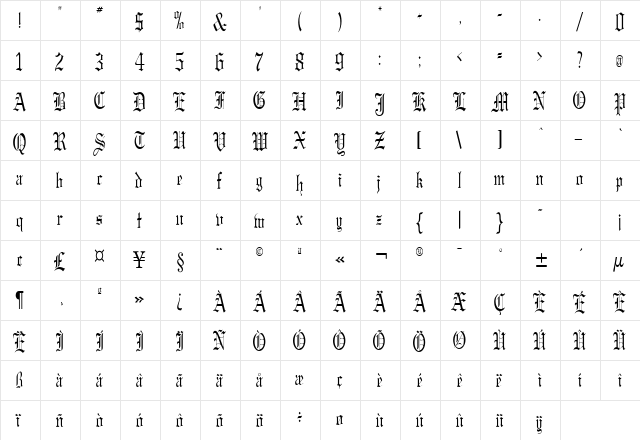
Gregory Thin Normal
Design Context for Gregory Thin Typeface
Gregory Thin is a composed and adaptable typeface that performs quietly and consistently across a wide range of design contexts. The delicate stroke weight brings airiness and refinement to layouts.